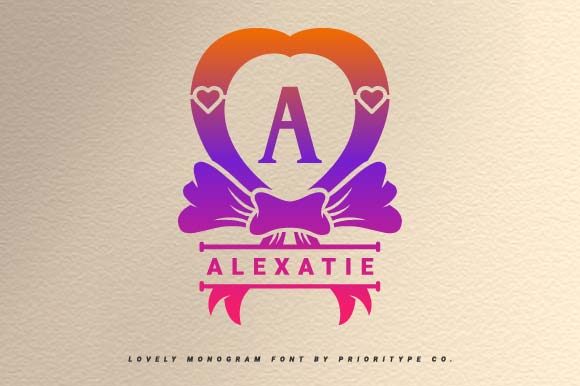
The Sweet Charm of Alexatie Font: A Designer’s Delight
I’ll never forget the time I was working on a wedding invitation project, and my client asked for a font that was “whimsical, yet elegant.” I scoured the internet, tried out dozens of fonts, but nothing seemed quite right. That was until I stumbled upon Alexatie Font. ✨ It was love at first sight! The authentic feel, the decorative flair, and the versatility of this font won me over, and I knew I had found the perfect fit for my project.
An Honest Review of Alexatie Font
- ✨ The sweet, decorative style that adds a touch of whimsy to any design
- ✅ The authentic feel that makes it perfect for creating unique and personalized designs
- 💕 The range of OpenType features, glyphs, and stylistic alternates that allow for endless creativity
- 👍 The ease of use, even for those who are new to working with decorative fonts
While Alexatie Font is a stunning addition to any design, there are a few things to keep in mind: 🤔
- ⚠️ Some of the more intricate details may not render well at smaller font sizes
- ⚠️ The font may not be suitable for body text, due to its decorative nature
The Backstory of Alexatie Font
Alexatie Font was designed with love and care by a talented type designer who wanted to create a font that would bring a touch of magic to everyday designs. Inspired by vintage stationery and elegant wedding invitations, Alexatie Font is the perfect blend of whimsy and sophistication.
Q: What is Alexatie Font best used for?
Alexatie Font is perfect for creating gorgeous wedding invitations, beautiful stationary art, eye-catching social media posts, and cute greeting cards. 🎉
Q: Is Alexatie Font easy to use?
Yes! Alexatie Font is designed to be user-friendly, even for those who are new to working with decorative fonts. 👍